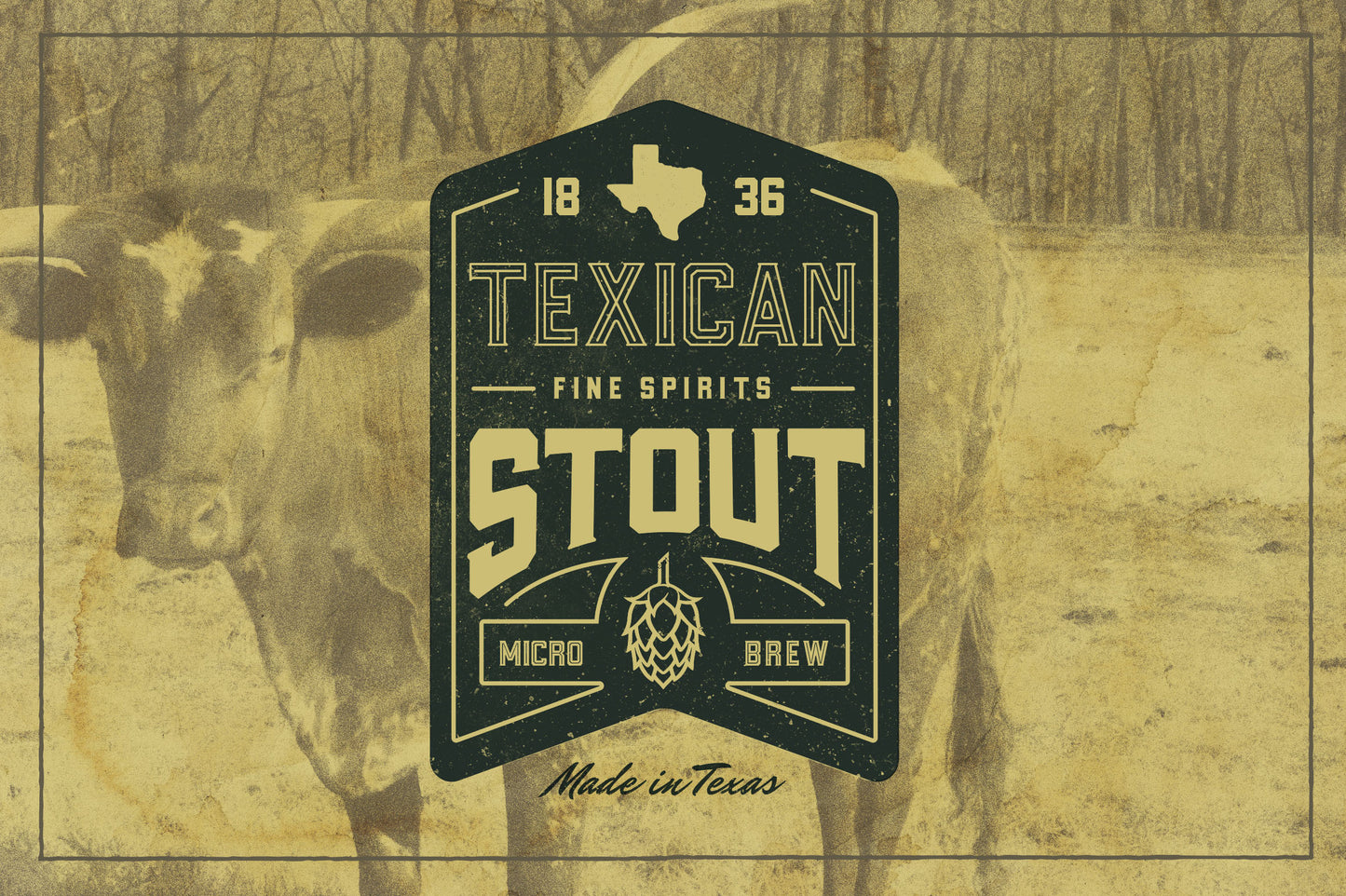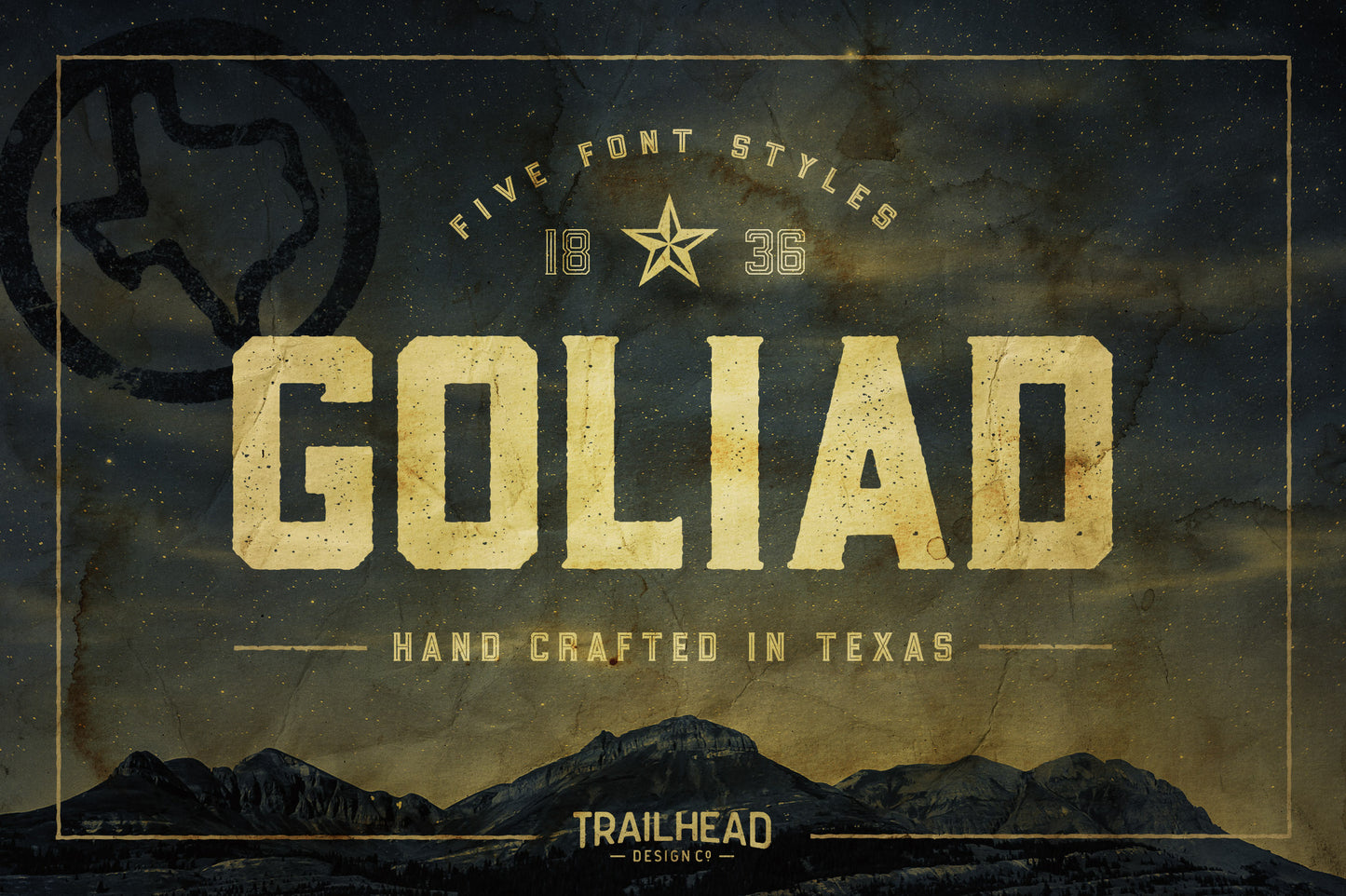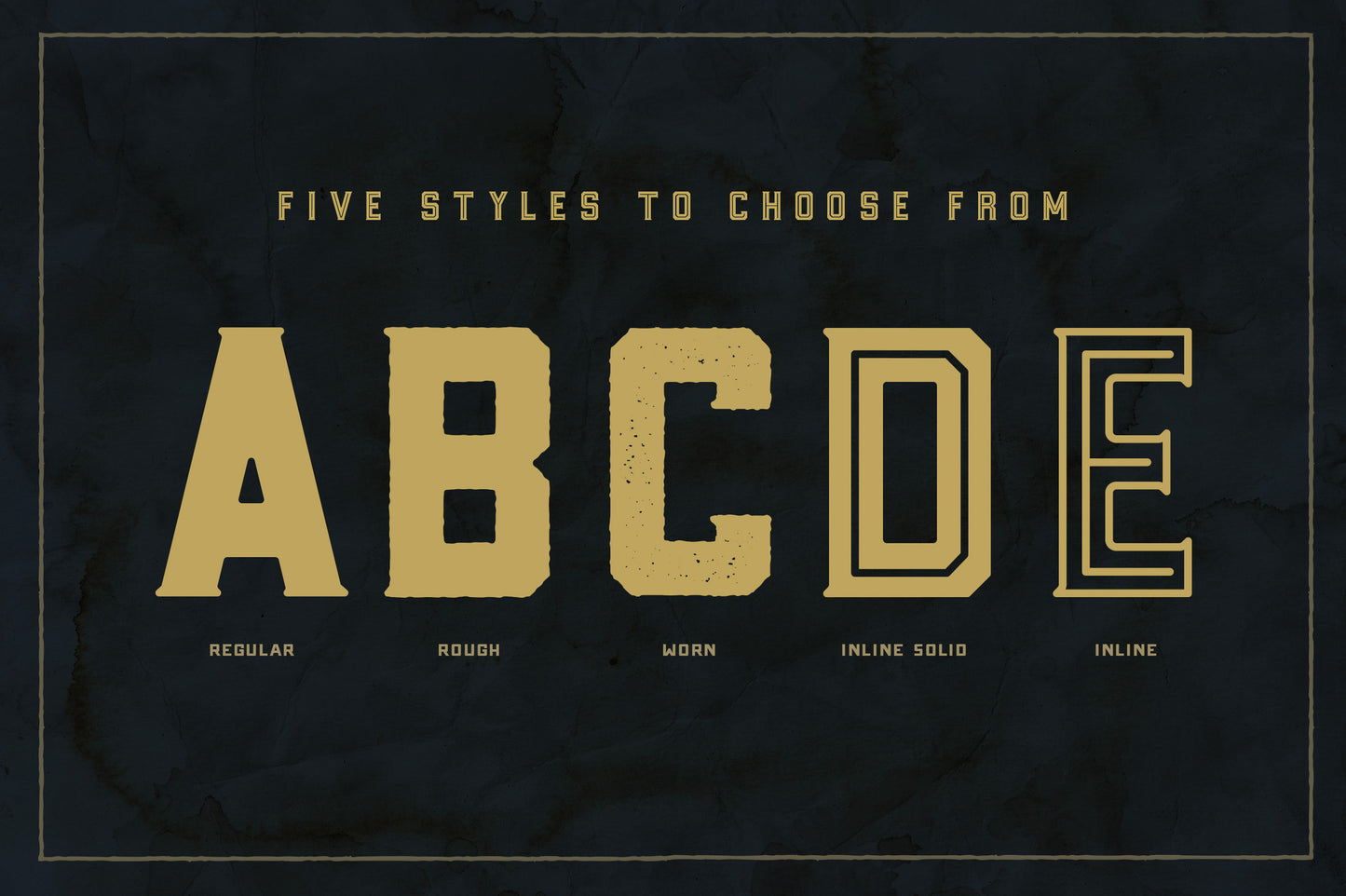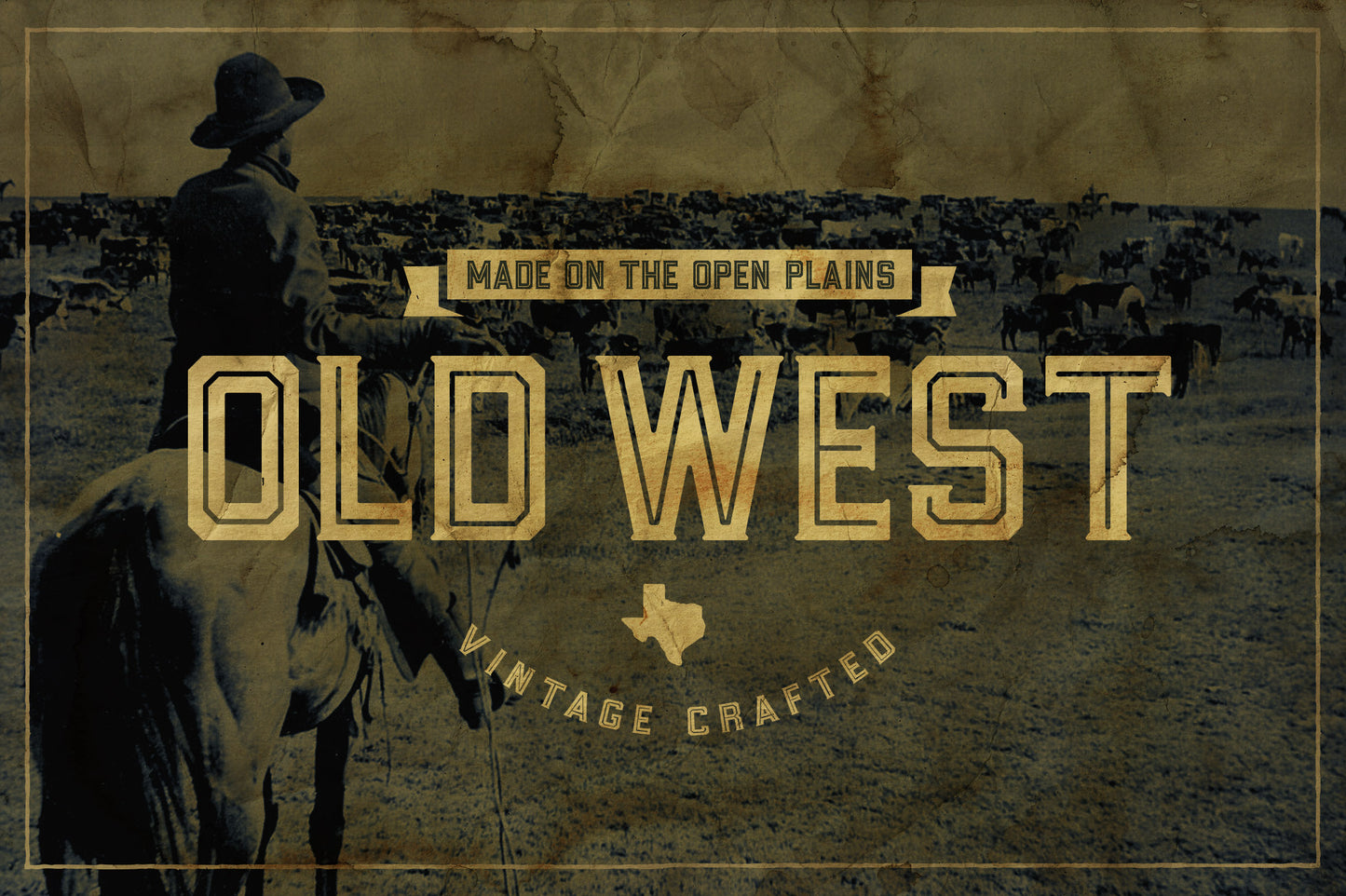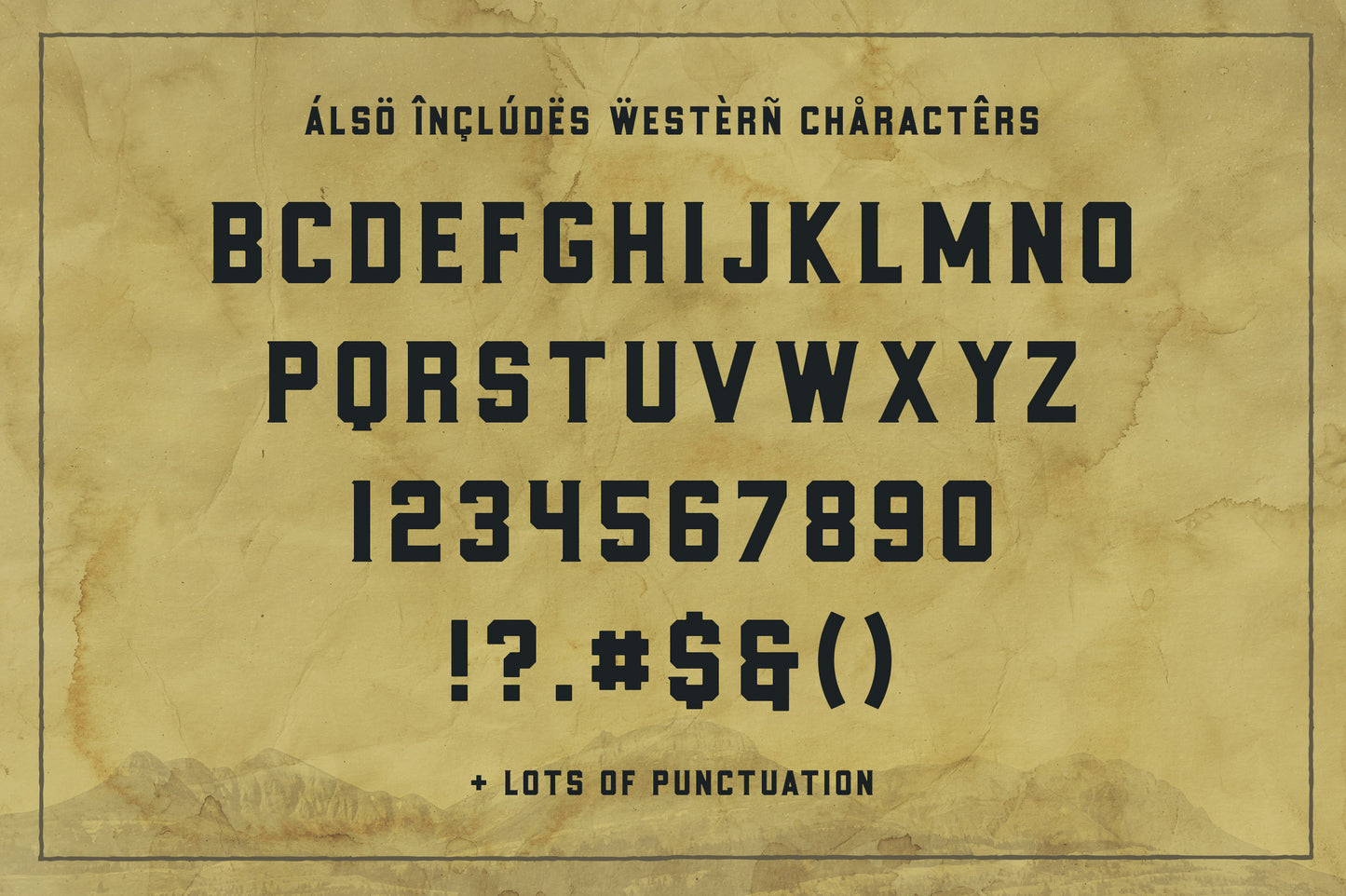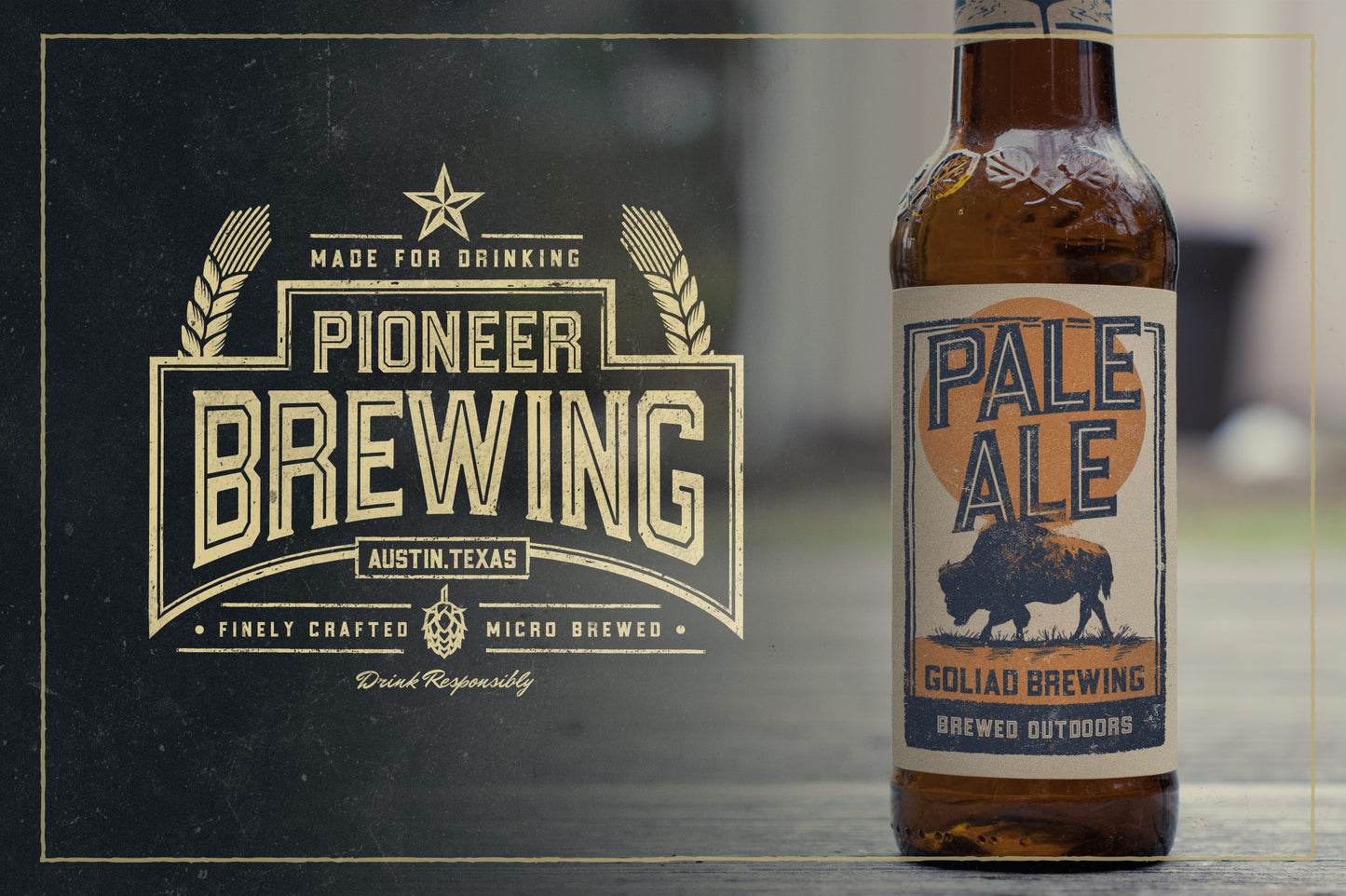
Goliad Font – Crafted in Texas
Introducing Goliad! This font collection features 5 styles all featuring a southern flare. I designed this type with Texas in mind. It works great for vintage styles logos, beer and BBQ labels and/or branding. It’s the perfect type for designs born out of hard working southern grit.
- Clean – Just the font as it was originally designed.
- Worn – The same font with worn out glyphs distressed edges, and specs grit.
- Rough – A solid version with roughened edges.
- Inline – An outlined version with a vintage style center line. Works great as a secondary font.
- Inline Solid – A solid version with the center line punched out.